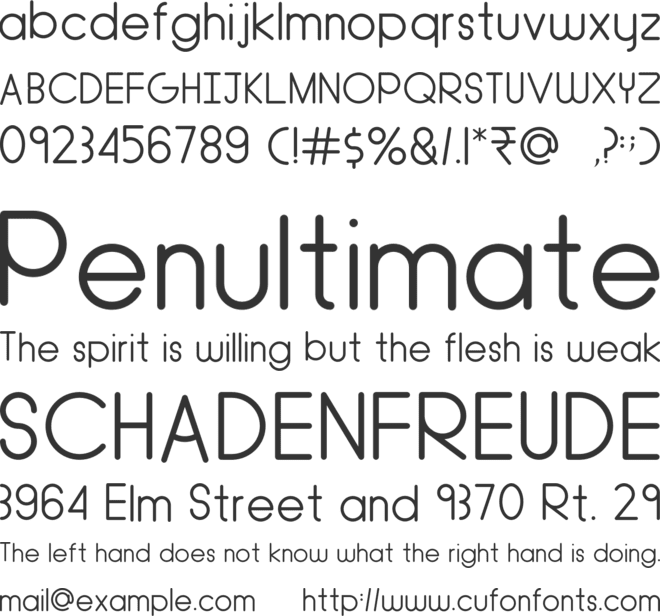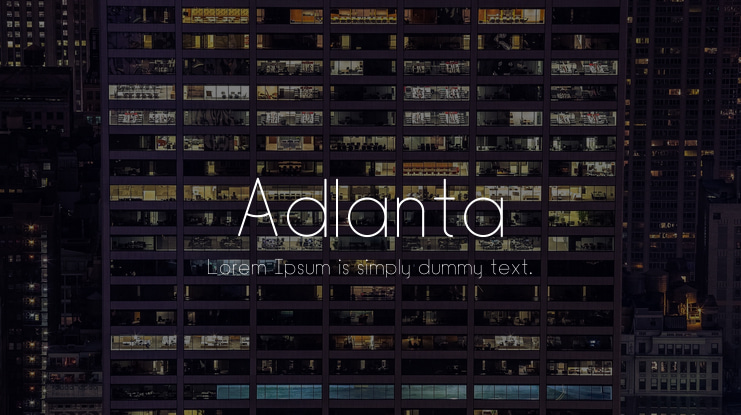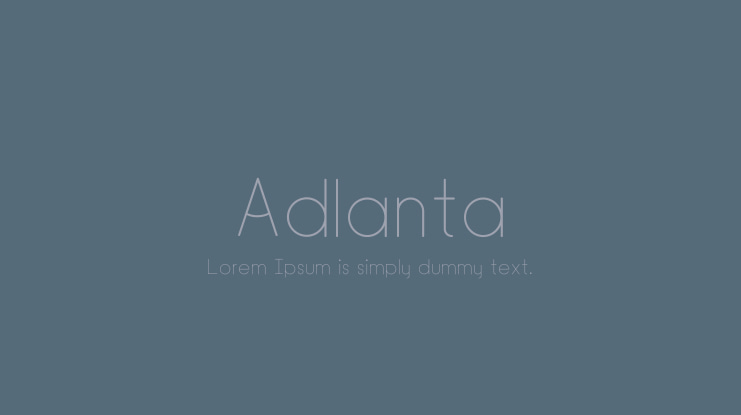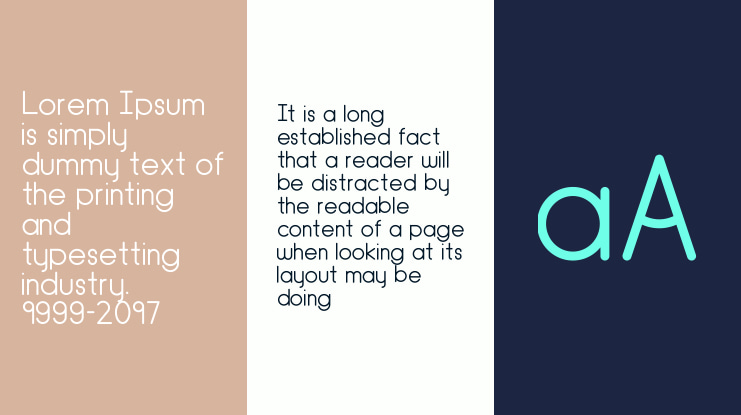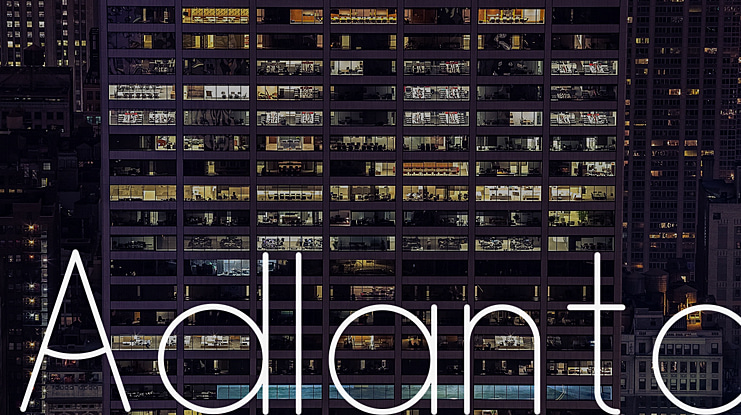
Adlanta Font Family
Adlanta is a beautiful and round cornered font with two weights, Light and regular. Adlanta is 100% free for personal and commercial uses.